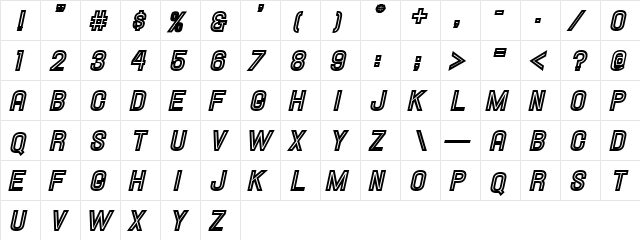
Hallandale Inline Italic JL Regular
| Foundry | Jeff's Fonts & Dingbats |
| Designer | Jeffrey N. Levine |
Design Context for Hallandale Inline Italic JL Typeface
Hallandale Inline Italic JL is built around its visual character rather than neutral utility — its distinctive forms are designed to make an impression at display sizes. Its italic angle brings a sense of urgency and motion to the letterforms.